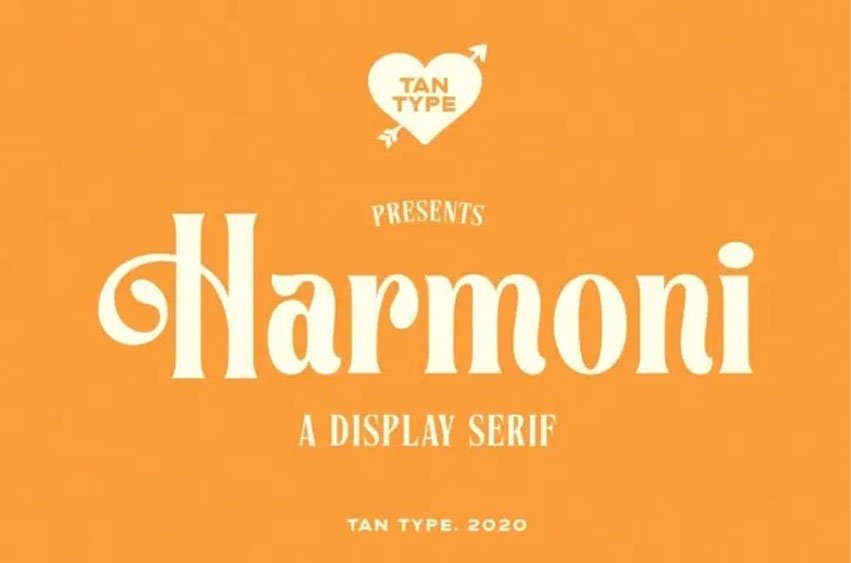
Harmoni Font is a display serif typeface. It retains the balance of being playful yet elegant. It has alternates for all the uppercase letters and some for the lowercase. Turn off the stylistic toggle and you can find a more serious tone with this typeface.